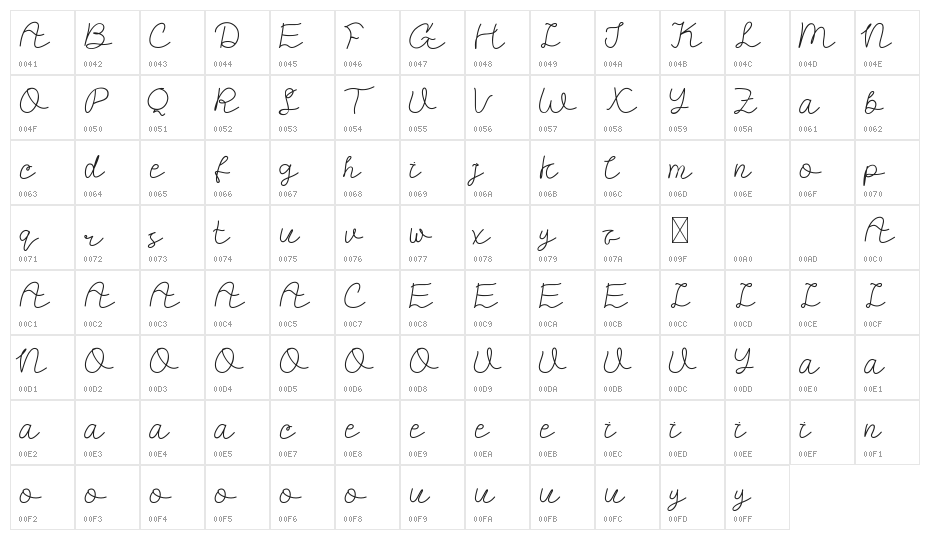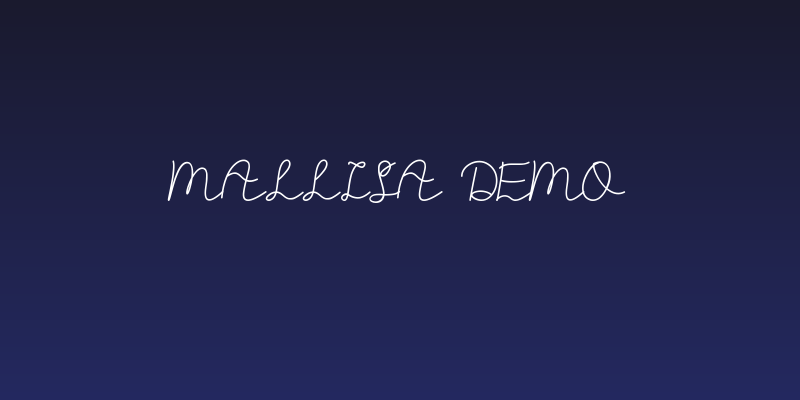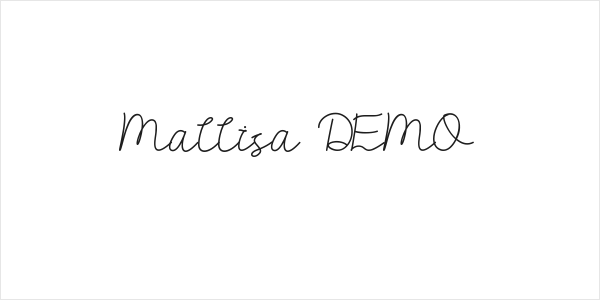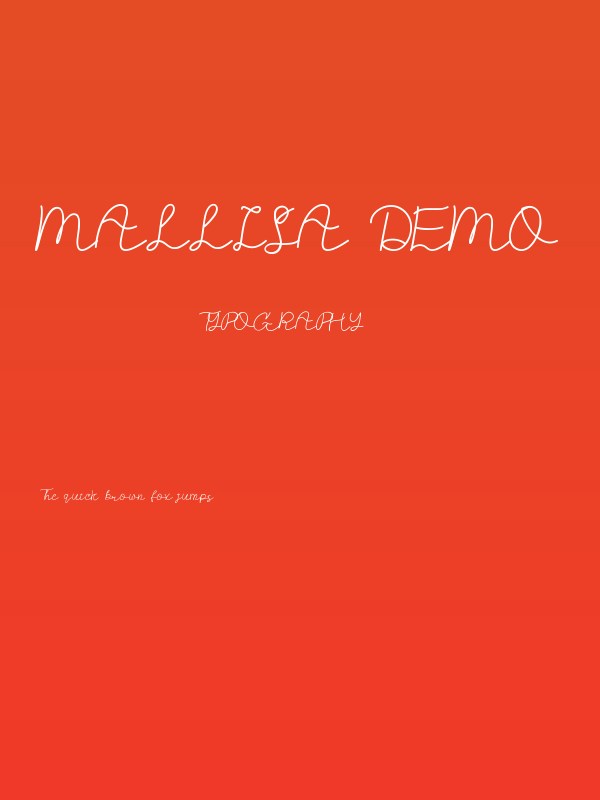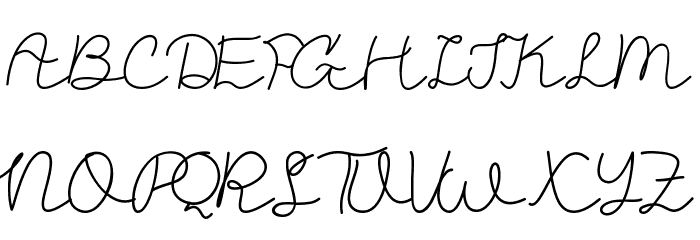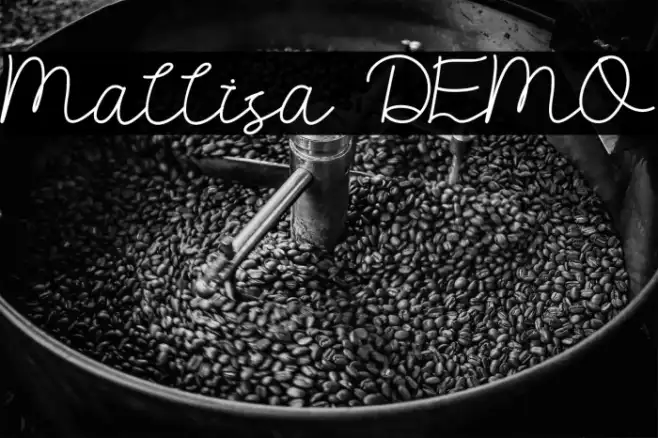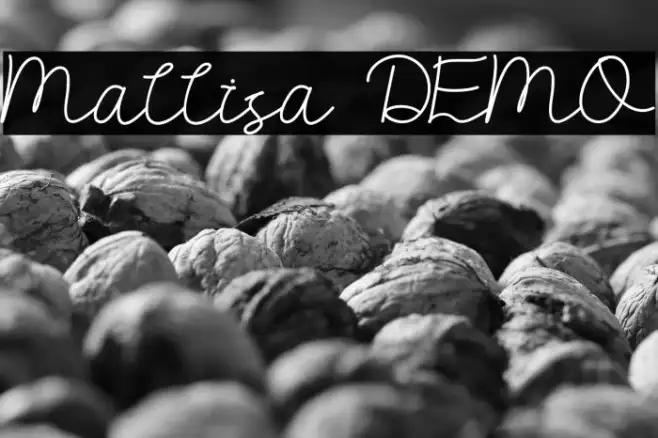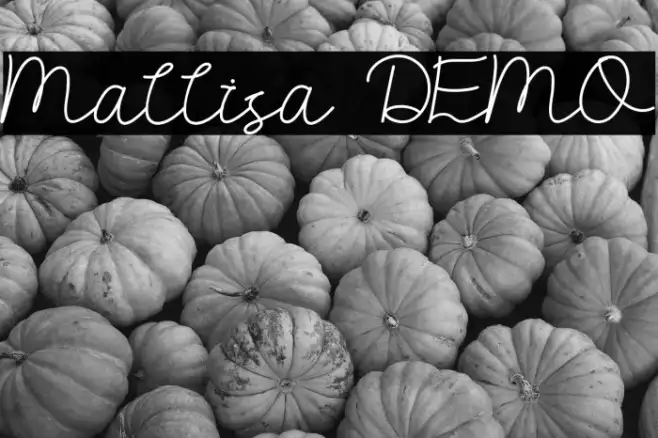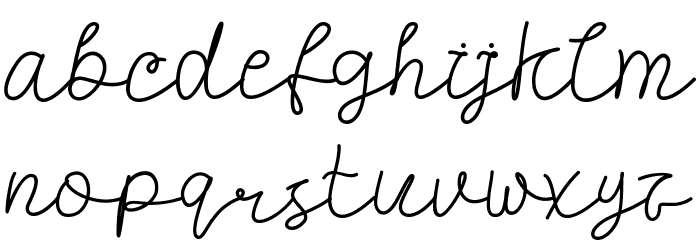
Mallisa DEMO Font
Mallisa DEMO Description
This font showcases a delicate and flowing script style, characterized by its elegant and cursive letterforms. The uppercase and lowercase letters are designed with a consistent slant, giving the font a sense of motion and fluidity. The strokes are smooth and connected, creating a harmonious and graceful appearance. The font maintains a uniform stroke width, contributing to its readability while preserving its artistic flair. The special characters are seamlessly integrated, maintaining the overall aesthetic. This font is ideal for projects that require a touch of sophistication and elegance.